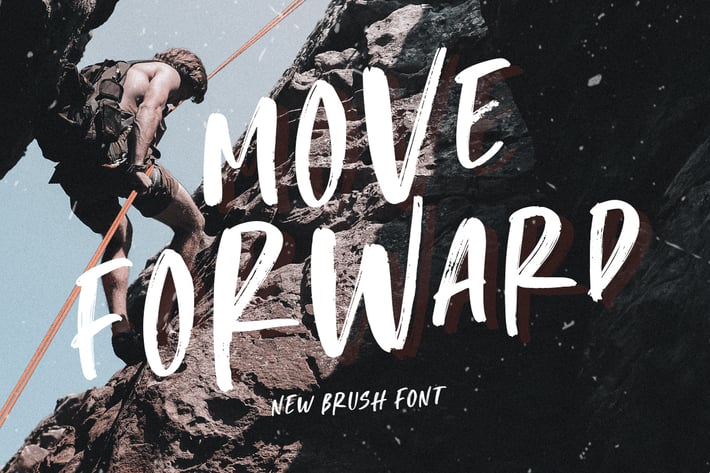
Move Forward - New Brush Font
Move Forward is an all caps font with brushy texture. It's contain uppercase and lowercase in different height, number, symbol, and also with multilingual support! This font also contain opentype feature for adding line under a word, You can access it from ligature, simply type underscore + number (1-3) in the middle of the text. For example: Mar_2ker. You can use this font for any project such as a branding, poster, quotes, and street style designs!